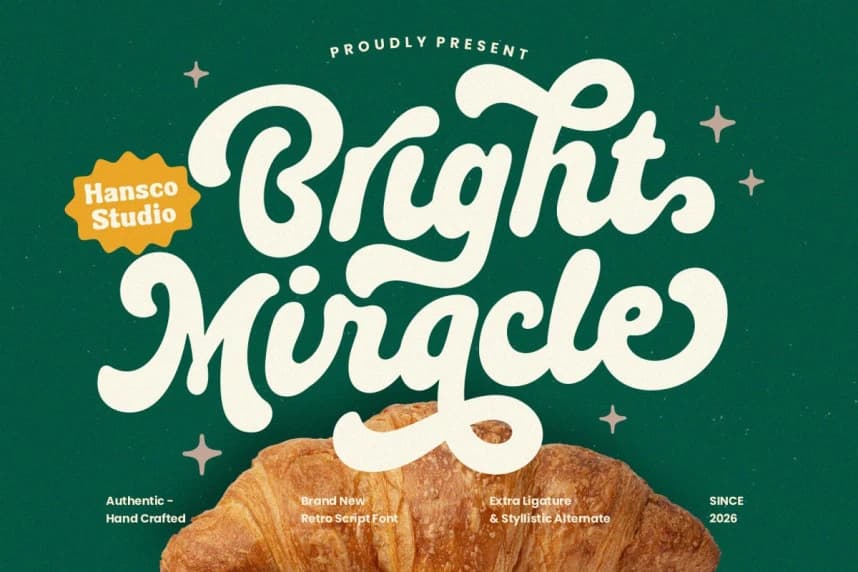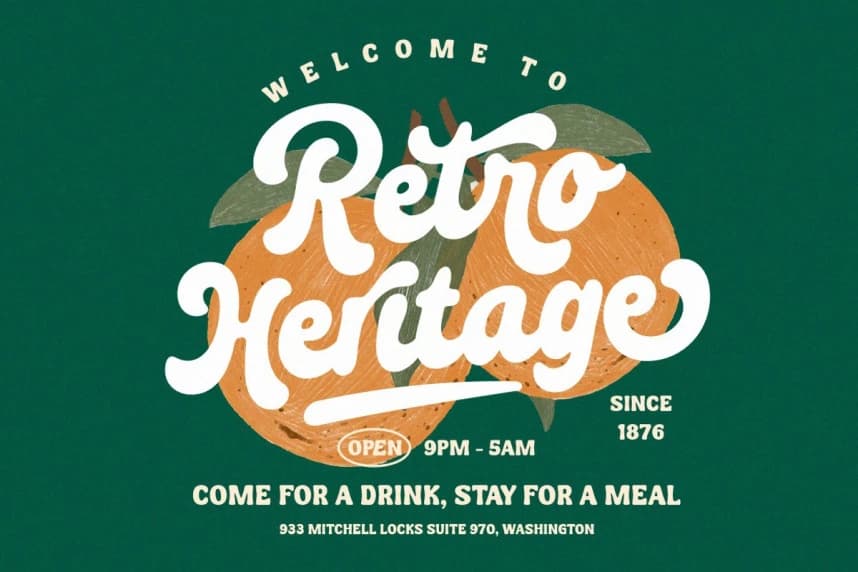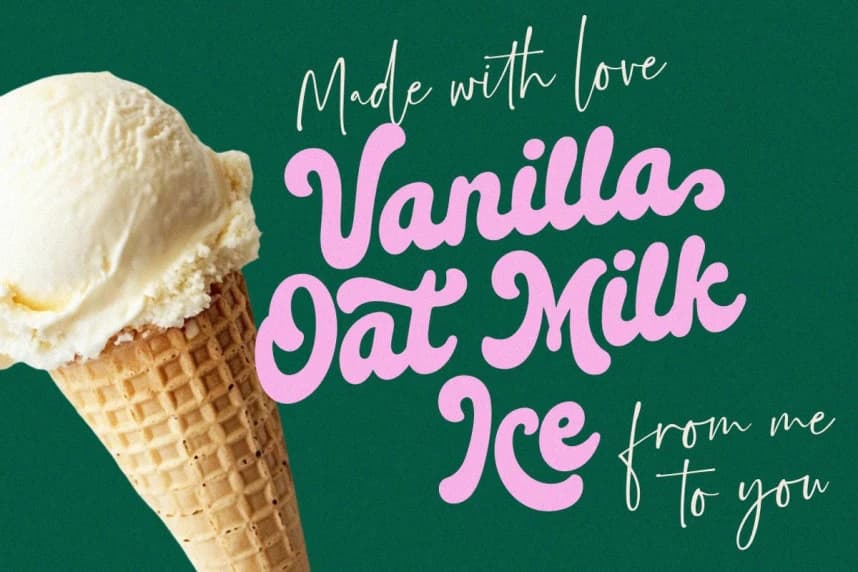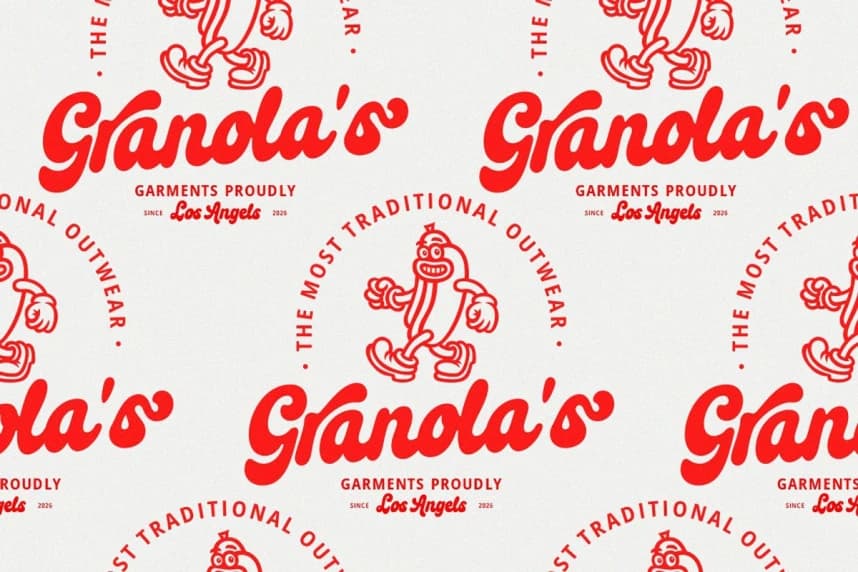
Bright Miracle Font
Bright Miracle Font - Bring effortless charm to your designs with this retro modern script font that blends nostalgic vibes with a fresh, contemporary twist. Designed with smooth curves, natural flow, and a casual handwritten feel